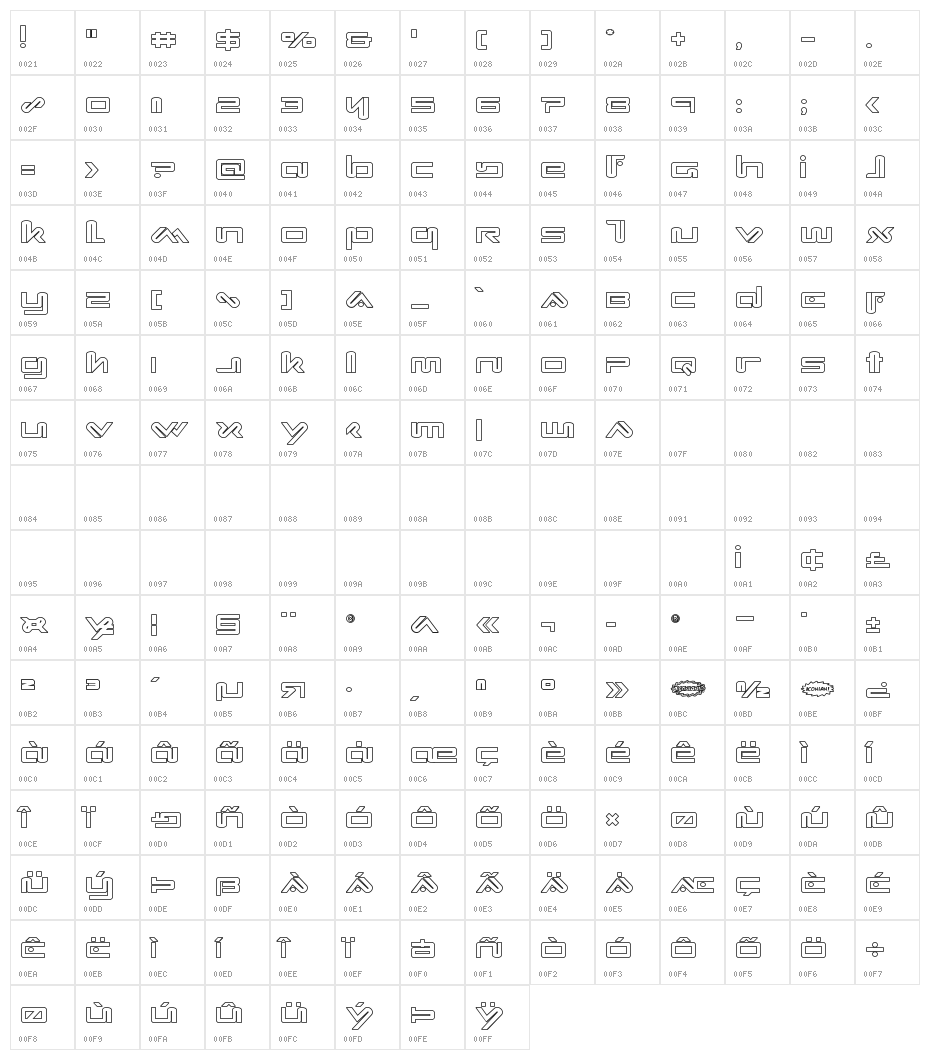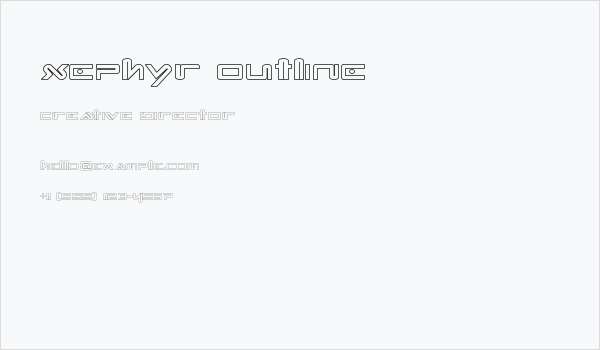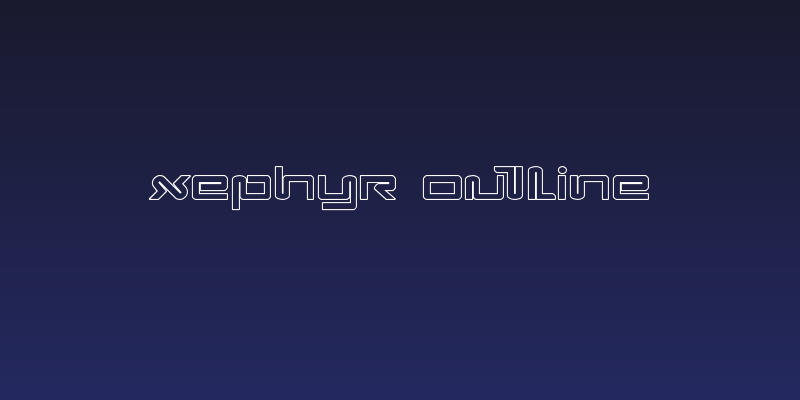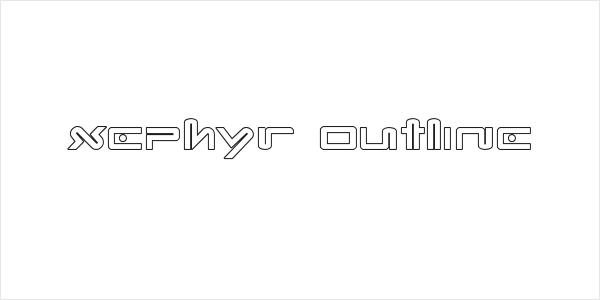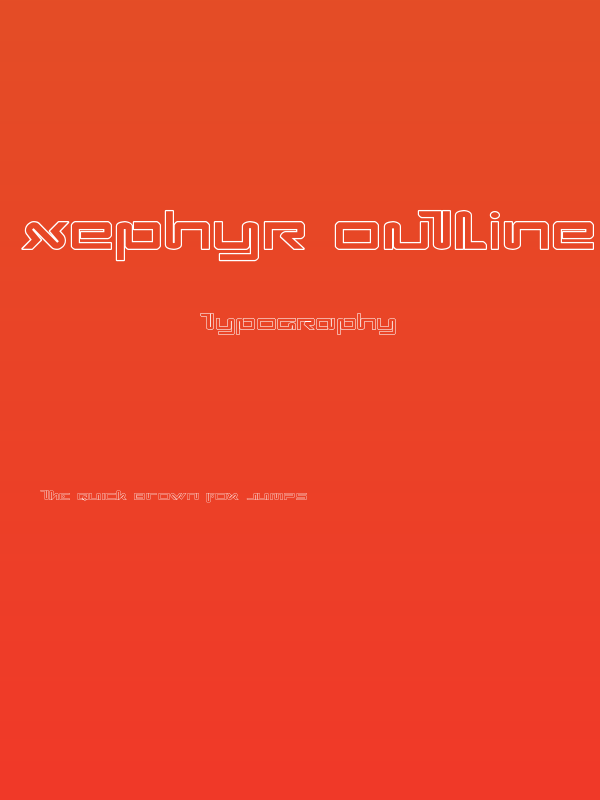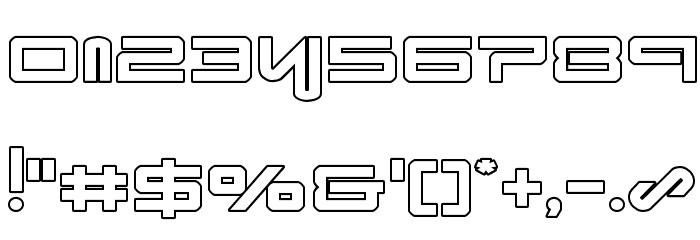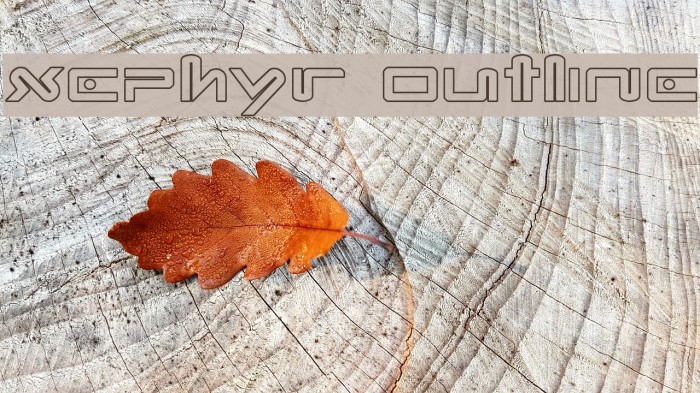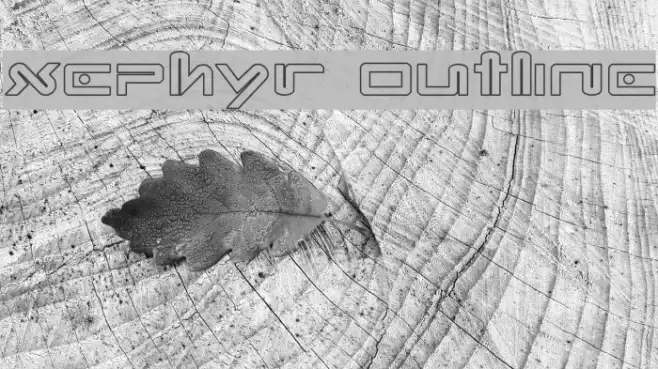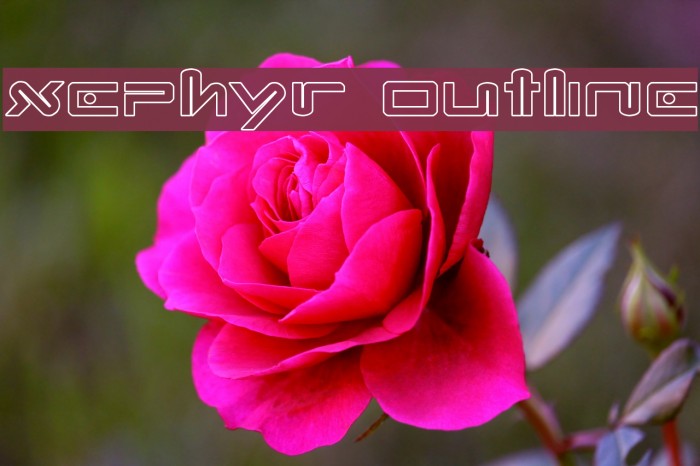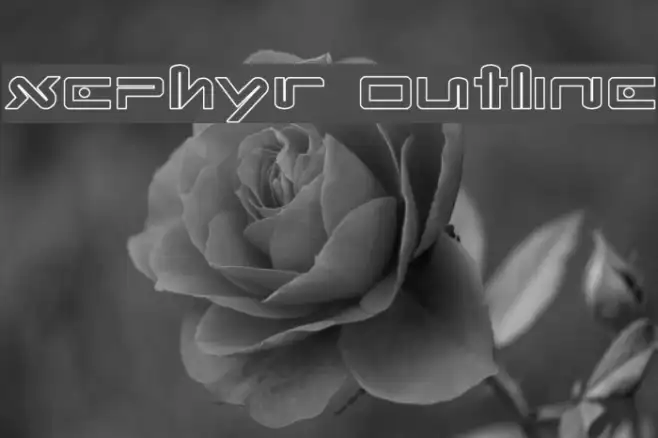
Xephyr Outline Font
Xephyr Outline Description
This font features a futuristic and geometric outline style, characterized by its bold and angular shapes. The letters are constructed with a consistent line thickness, creating a uniform and cohesive appearance. The design incorporates sharp angles and straight lines, giving it a modern and tech-inspired look. The uppercase and lowercase letters maintain a similar structure, enhancing readability while preserving the unique aesthetic. Numbers and special characters follow the same design principles, ensuring a harmonious overall appearance. This font is ideal for projects that require a contemporary and edgy feel.